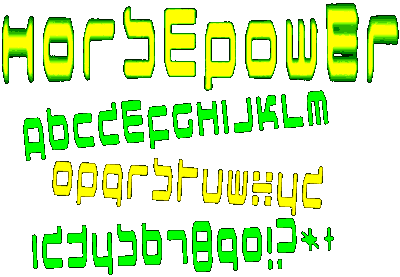
Techno! techno! (oomph oomph oomph oomph) techno! (oomph oomph oomph oomph)Techno! techno! (oomph oomph oomph oomph) techno! (oomph oomph oomph oomph)Techno! techno! (oomph oomph oomph oomph) techno! (oomph oomph oomph oomph)Techno! techno! (oomph oomph oomph oomph) techno! (oomph oomph oomph oomph)Techno! techno! (oomph oomph oomph oomph) BEEP BEEP BURP FURT! techno! (oomph oomph oomph oomph) I don't have a good techno MIDI for this one so you'll have to play an Orbital CD to view this font or just read along with the above marquee.
blip blip blip!